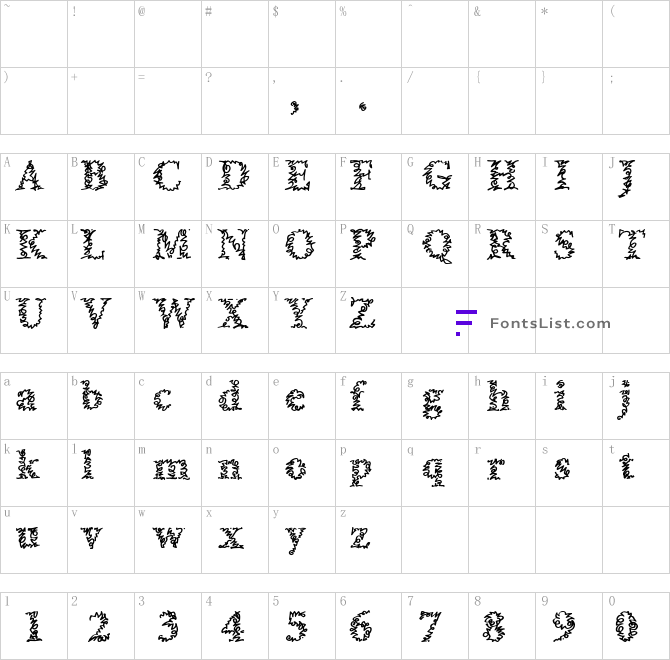
- Font Name:a Morris line
AMorrisline.otf is a very beautiful artistic font, AMorrisline.otf is widely used in the design and printing of various books and pictures,AMorrisline.otf has a strong visual impact,AMorrisline.otf is a commonly used font in newspapers, magazines and books, and is used in posters, e-commerce Poster design, store design, logo design, font design and other fields.AMorrisline.